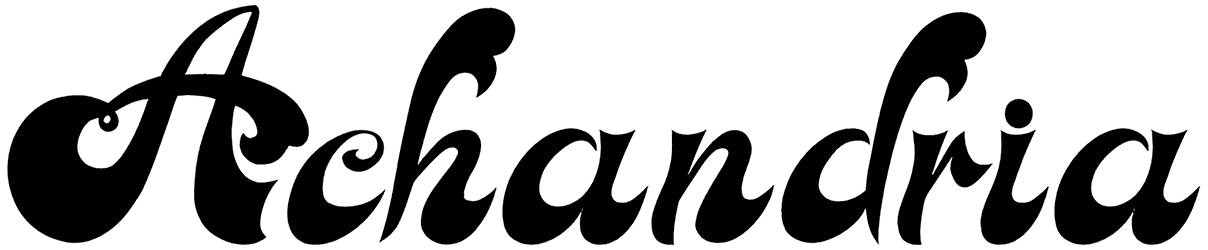
Achandria Font
Picking a vintage and manual option up would be perfect for a lot of designs, and Achandria can make this happen. As a retro font with a smooth and curvy hand-drawn face, this could be used for various subjects. Achandria doesn’t have numbers and punctuation marks, but still would nicely work to illustrate your layouts from postcards to mugs.
Introducing Achandria A Retro Font Inspired from retro typography from the 80’s combine with bold typography style. Come with an open type feature with a lot of alternates and end swash, it helps you to make great lettering.